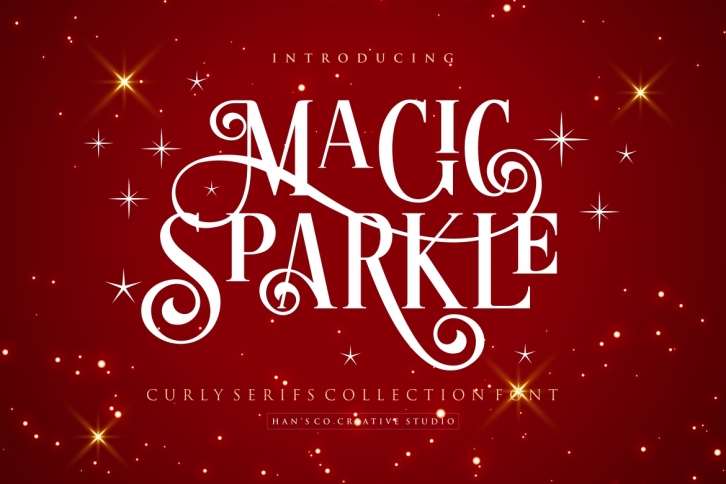
Magic Sparkle is a great font that was designed by HansCo. Imagine the amount of combinations you can create using this font! The archive is 18.33 MB and it was released on November 10, 2019. Magic Sparkle looks beautiful on wedding invitations, greeting cards, logos, posters, labels, t-shirt designs, logos, business cards and is perfect for use in ink or watercolor works, fashion, magazines, packaging and food menus, children's books and more!